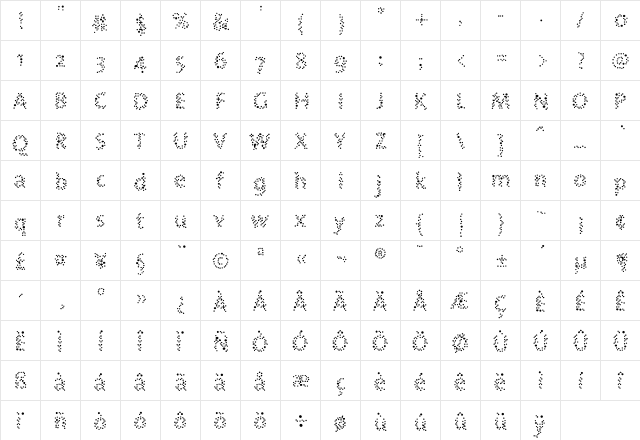
Nebulae- Regular
Design Context for Nebulae- Typeface
Nebulae- is a composed and adaptable typeface that performs quietly and consistently across a wide range of design contexts.